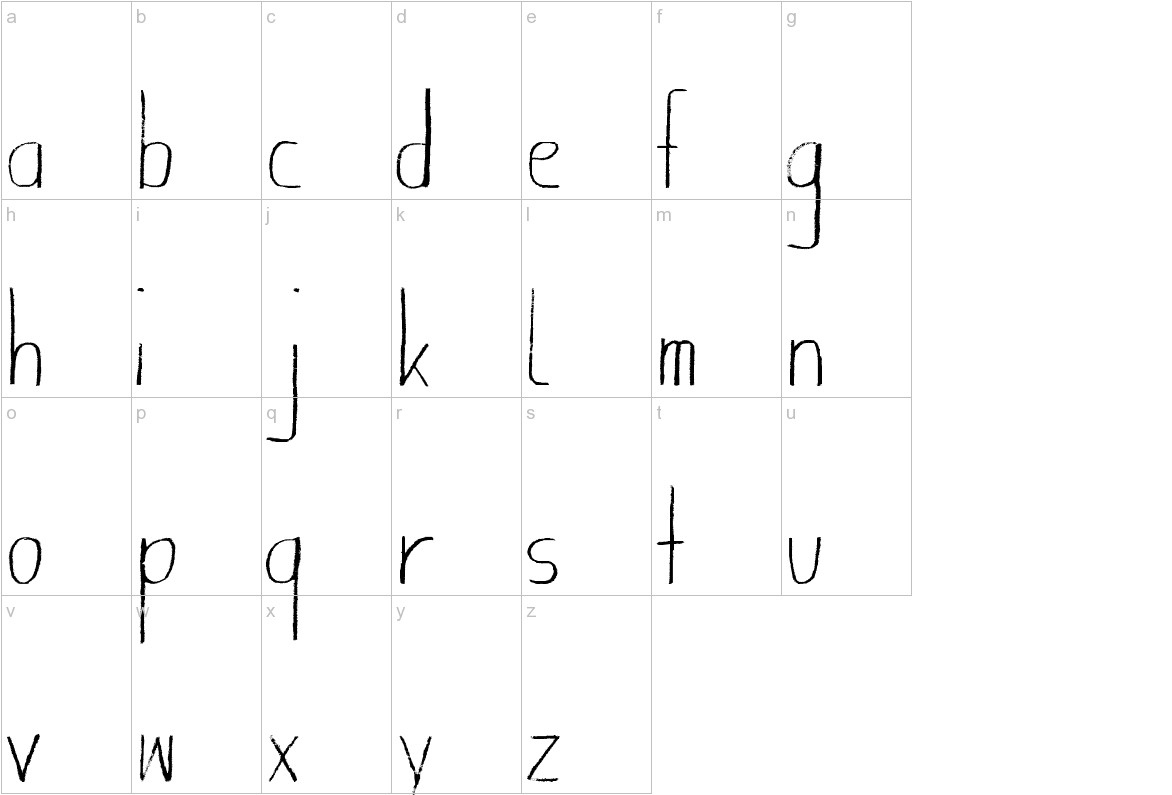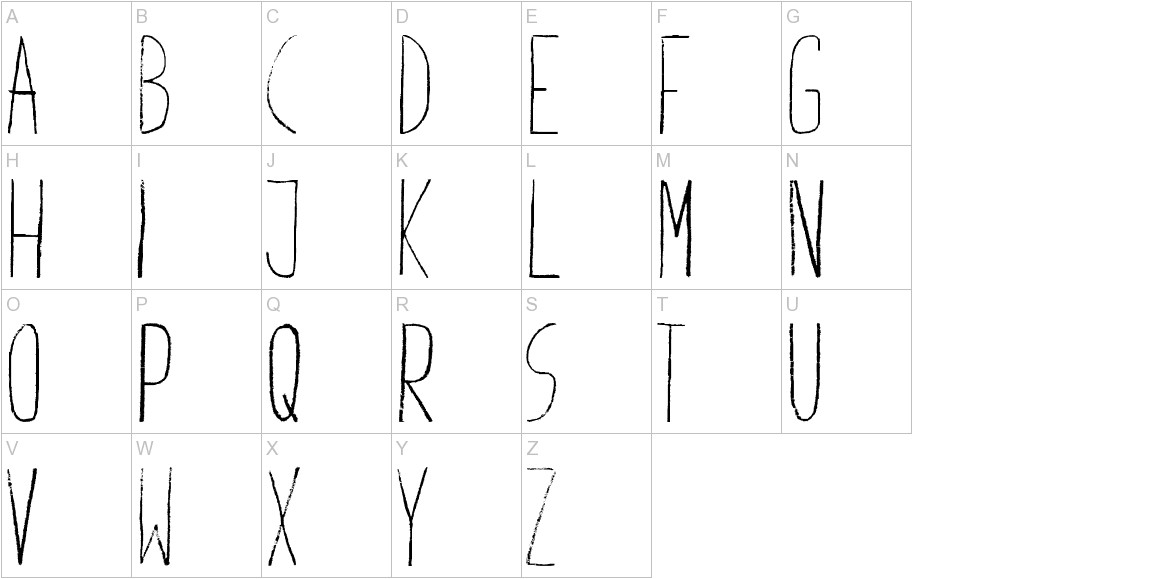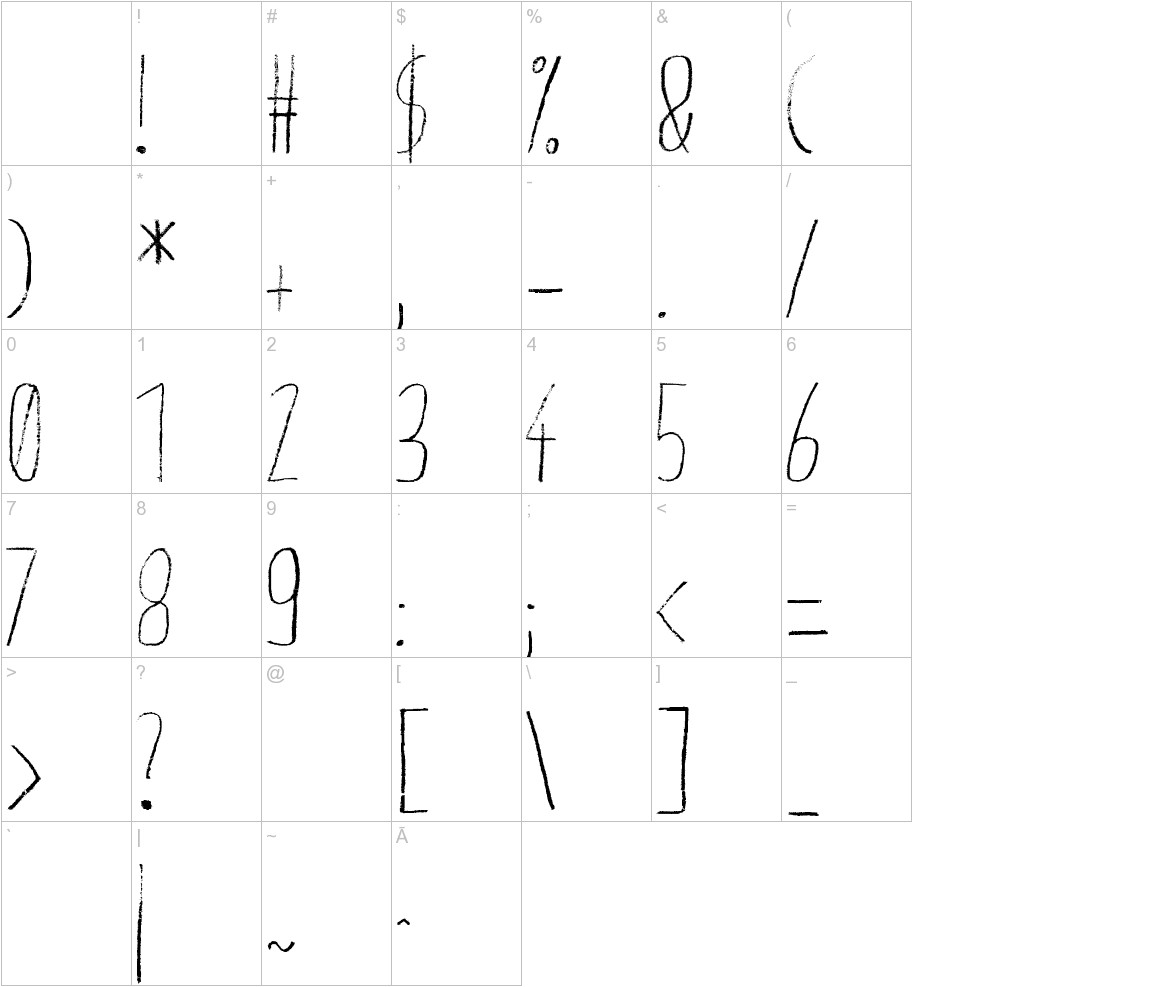
Giraffenhals
Headline Font / Display Font / Handwritten Font "Giraffenhals"
with 4 stlyes (regular, bold, condensed, extended)
& 248 glyphs inkl. accents & ?